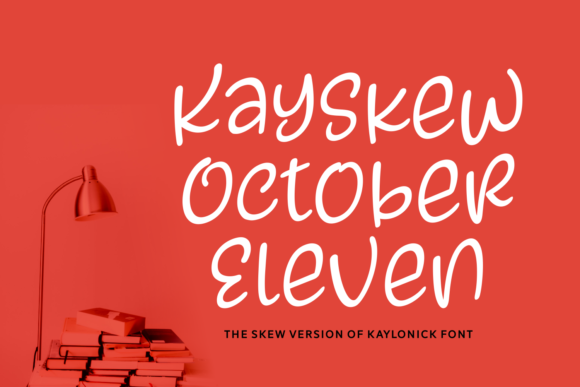
Kayskew October Eleven Font
**Indulge in the Whimsical Charm of Kayskew October Eleven**
Unleash your creativity with the enchanting Kayskew October Eleven font, a captivating script that embodies the essence of whimsy and modernity. Crafted by the renowned Situjuh, this exceptional typeface is the skewed counterpart of the beloved 'Kaylonick' font.
With its playful and contemporary style, Kayskew October Eleven transports you to a realm of boundless imagination. Each letter dances across the page with a unique allure, inviting you to express your individuality. Whether you're designing captivating posters, crafting enchanting invitations, or adorning your social media with a touch of playfulness, this font will elevate your creations to new heights.
But Kayskew October Eleven is more than just a pretty face. Its versatility knows no bounds. From eye-catching headlines that demand attention to delicate body text that whispers sweet nothings, this typeface adapts seamlessly to your every need.
Imagine the allure of handwritten notes with the precision of digital artistry. Kayskew October Eleven captures the essence of both worlds, giving your creations an irresistible charm that will captivate your audience.
Embrace the magic of Kayskew October Eleven and let your imagination soar. Dive into a world where whimsy meets modernity, and where every word you craft becomes a masterpiece.